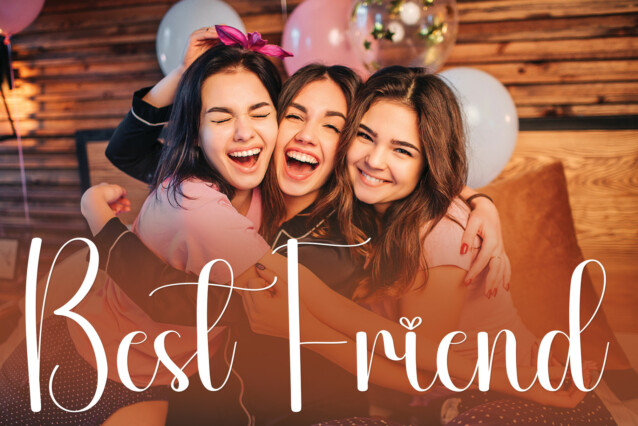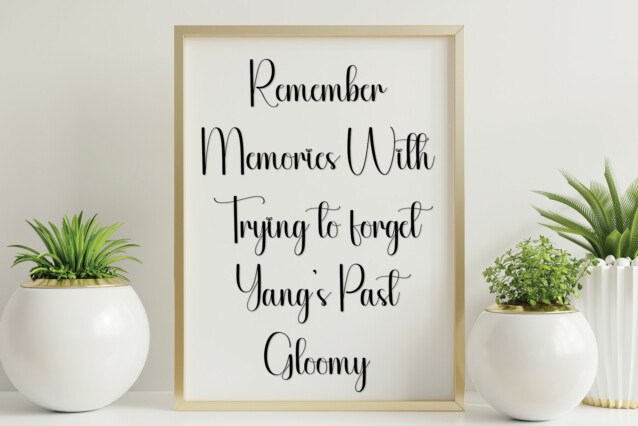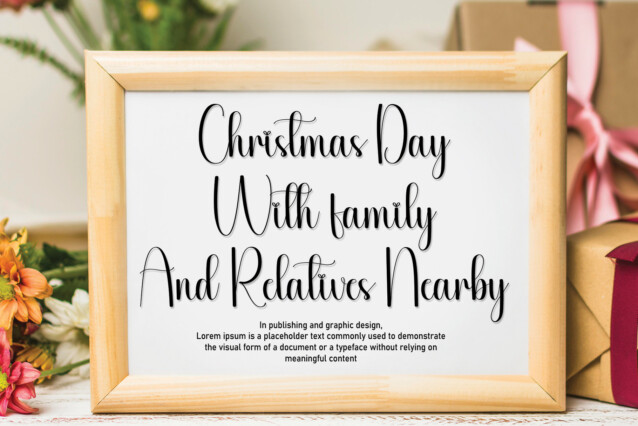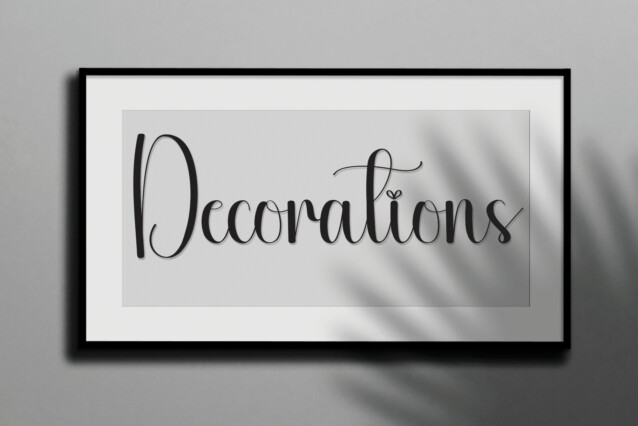
Caricature Script Font
Caricature Script Font is a flowing handwritten font, described by an elegant touch, perfect for your favorite projects. Fall in love with its incredibly distinct and timeless style and use it to create spectacular designs!